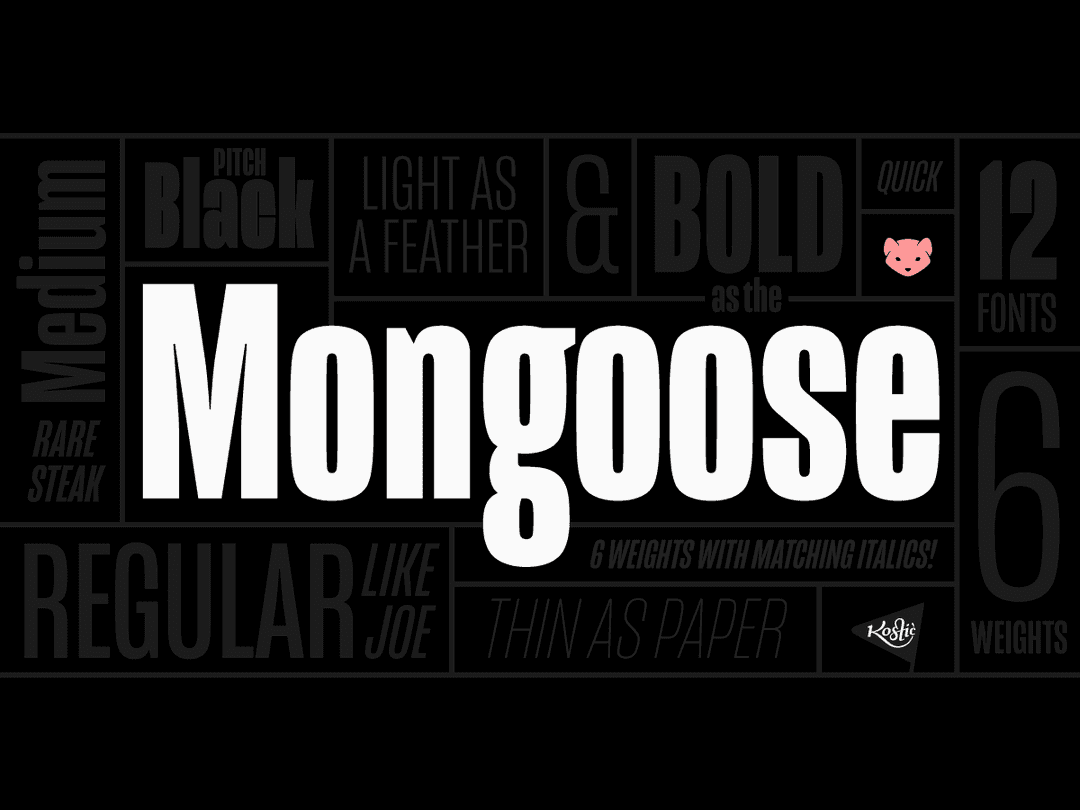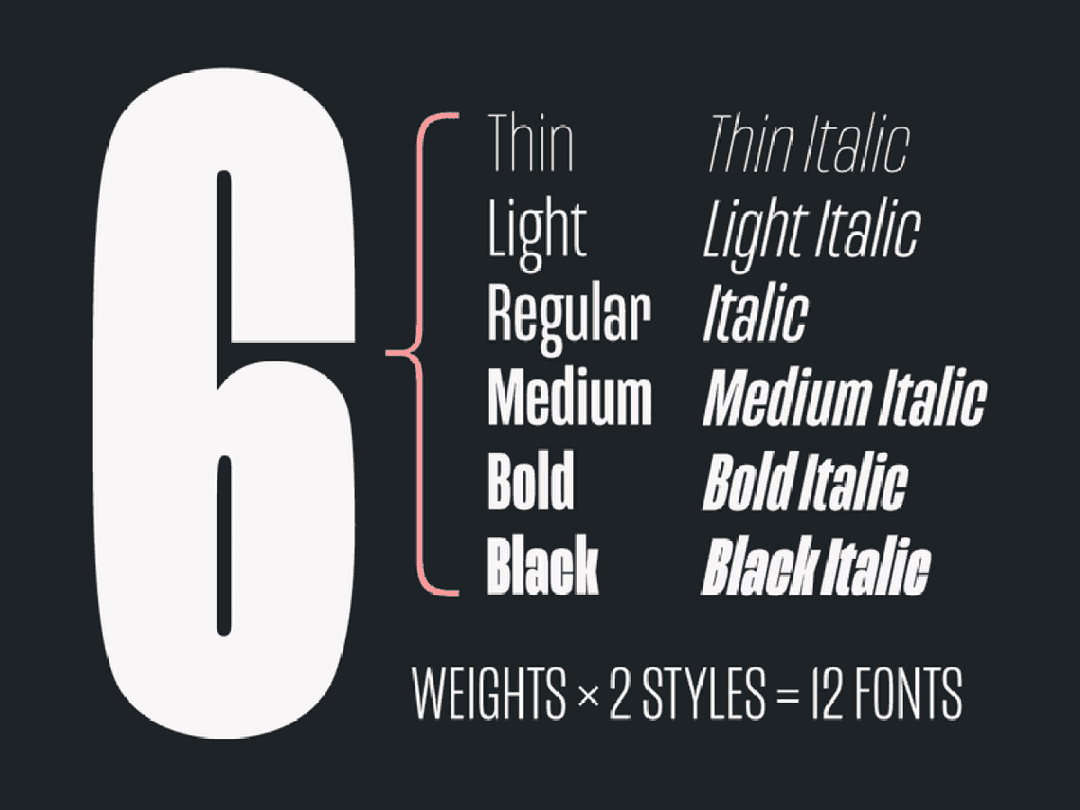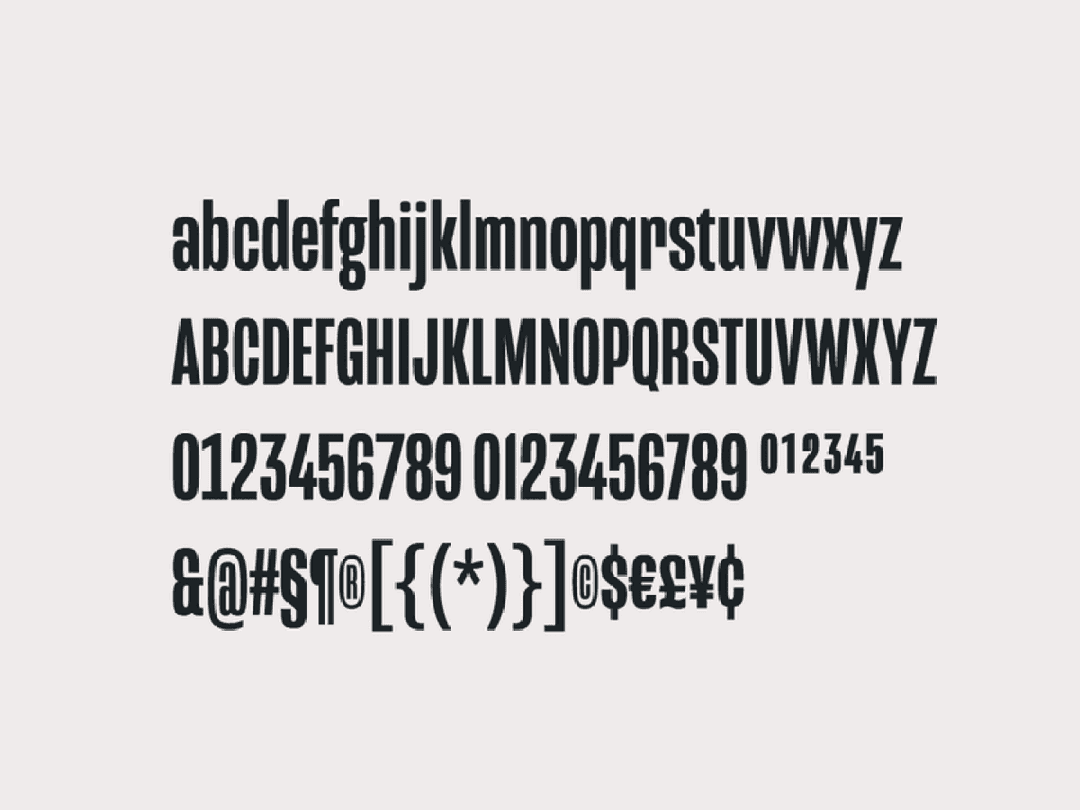
Mongoose is an elegant font family designed specifically to be used in headlines, posters and logotypes. The x-height and caps were specifically created to compliment ultra wide Briller. Combining both type families could add an interesting dimension.